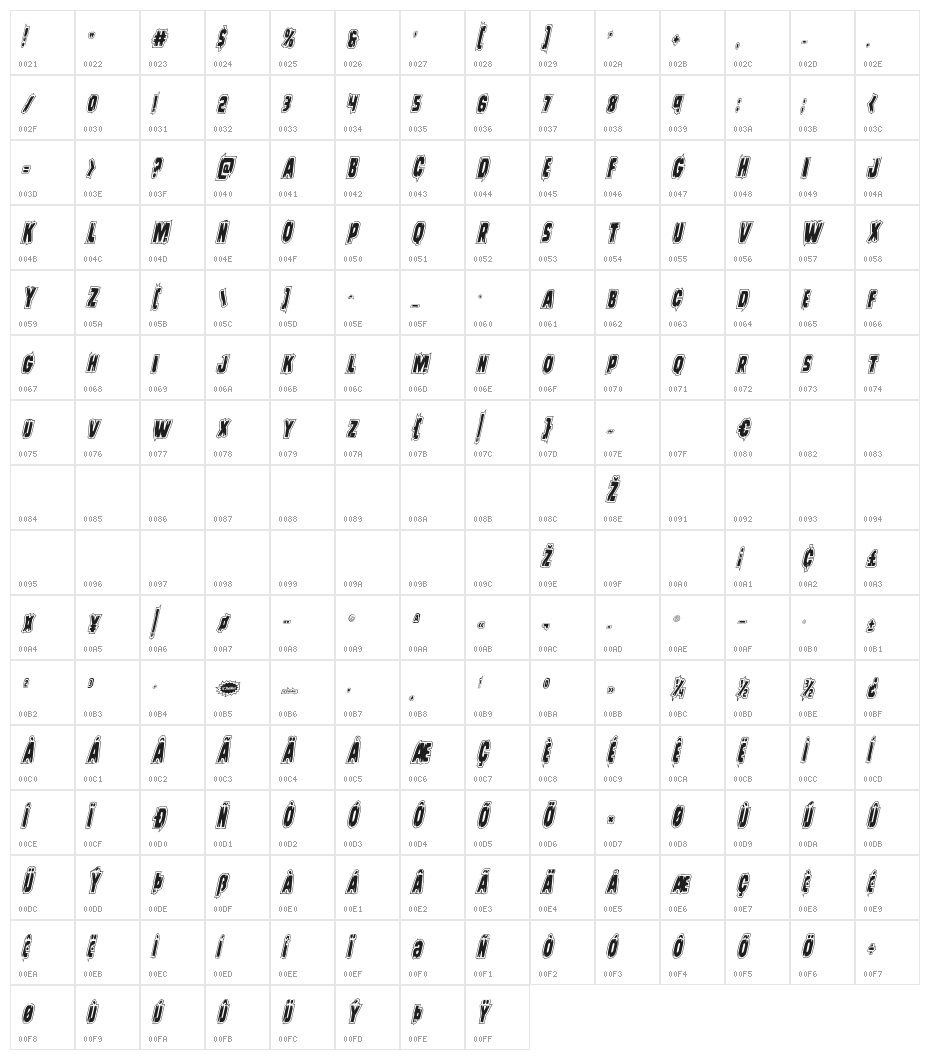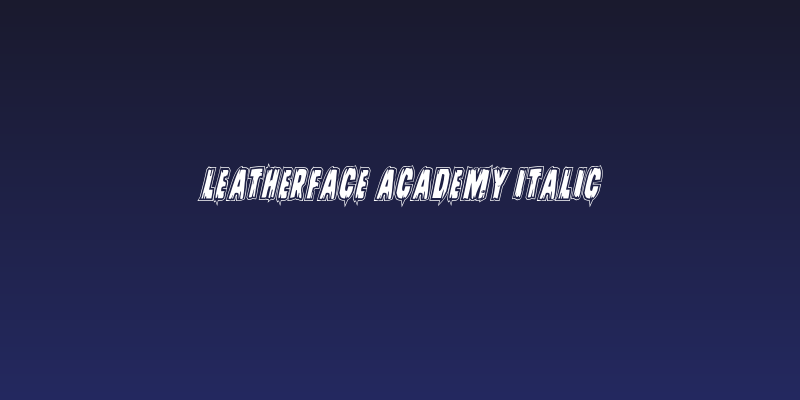
Leatherface Academy Italic Font
Leatherface Academy Italic Description
This font features a bold and dynamic style with a distinct italic slant, giving it a sense of motion and energy. The characters are outlined with a jagged, rough edge that adds a gritty, textured appearance, reminiscent of a hand-drawn or distressed effect. The uppercase and lowercase letters maintain a consistent style, with exaggerated serifs and a slightly condensed form. The numbers and special characters follow the same design principles, ensuring a cohesive look across all glyphs. This font's unique aesthetic makes it stand out, ideal for projects that require a bold statement or a touch of rebellious flair.